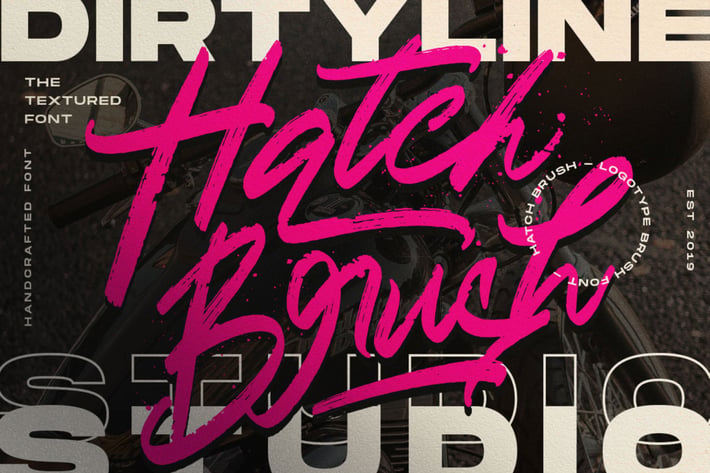
Hatch - Brush Font
Hatch Brush is Stylist Brush font with a real hand-painted wet brush look. Ideal for signature, logos, handwritten quotes, product packaging, header, poster, merchandise, social media & greeting cards.
FEATURE :
Alternative Character
Multilangual
Stylistic Alternate
Swash